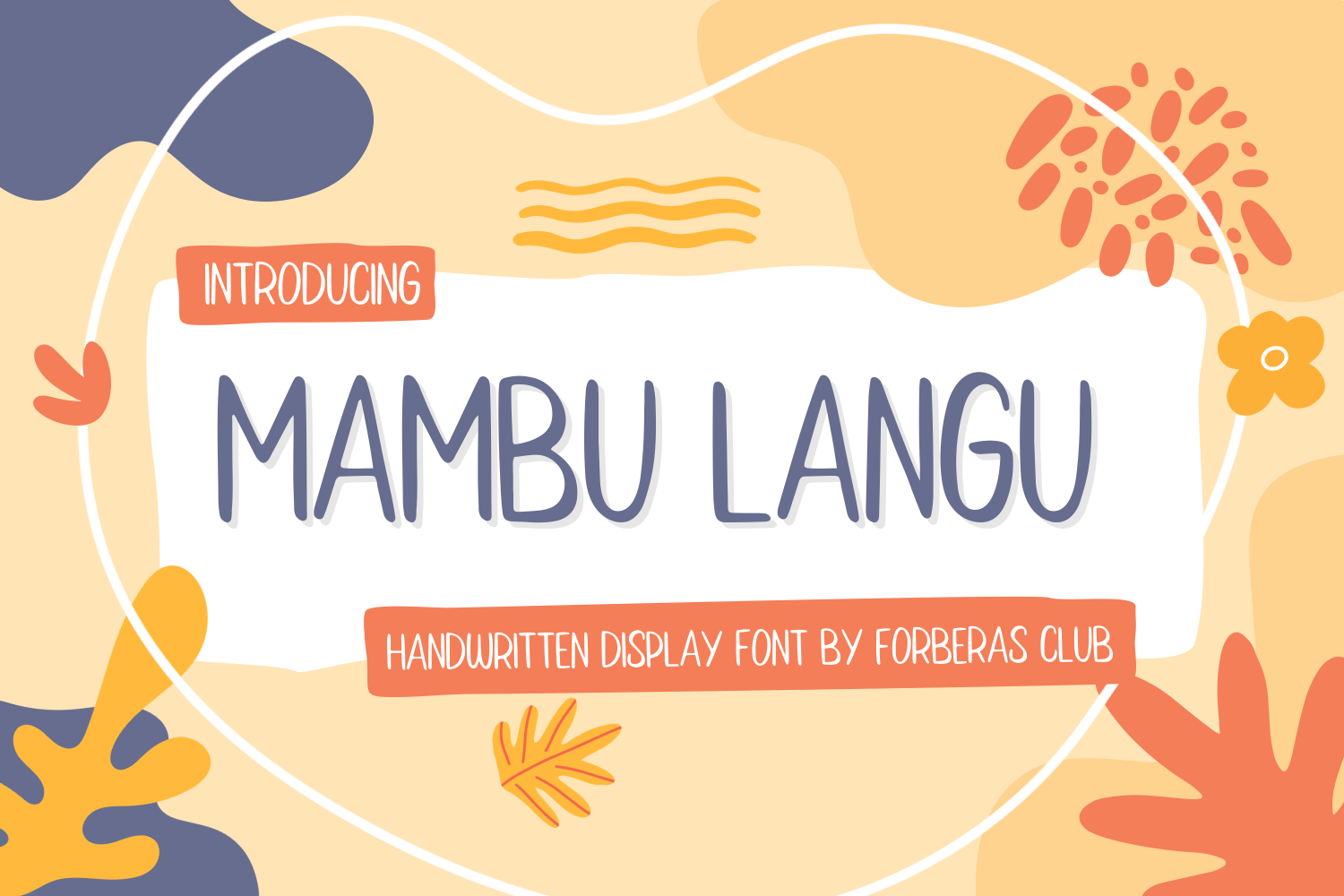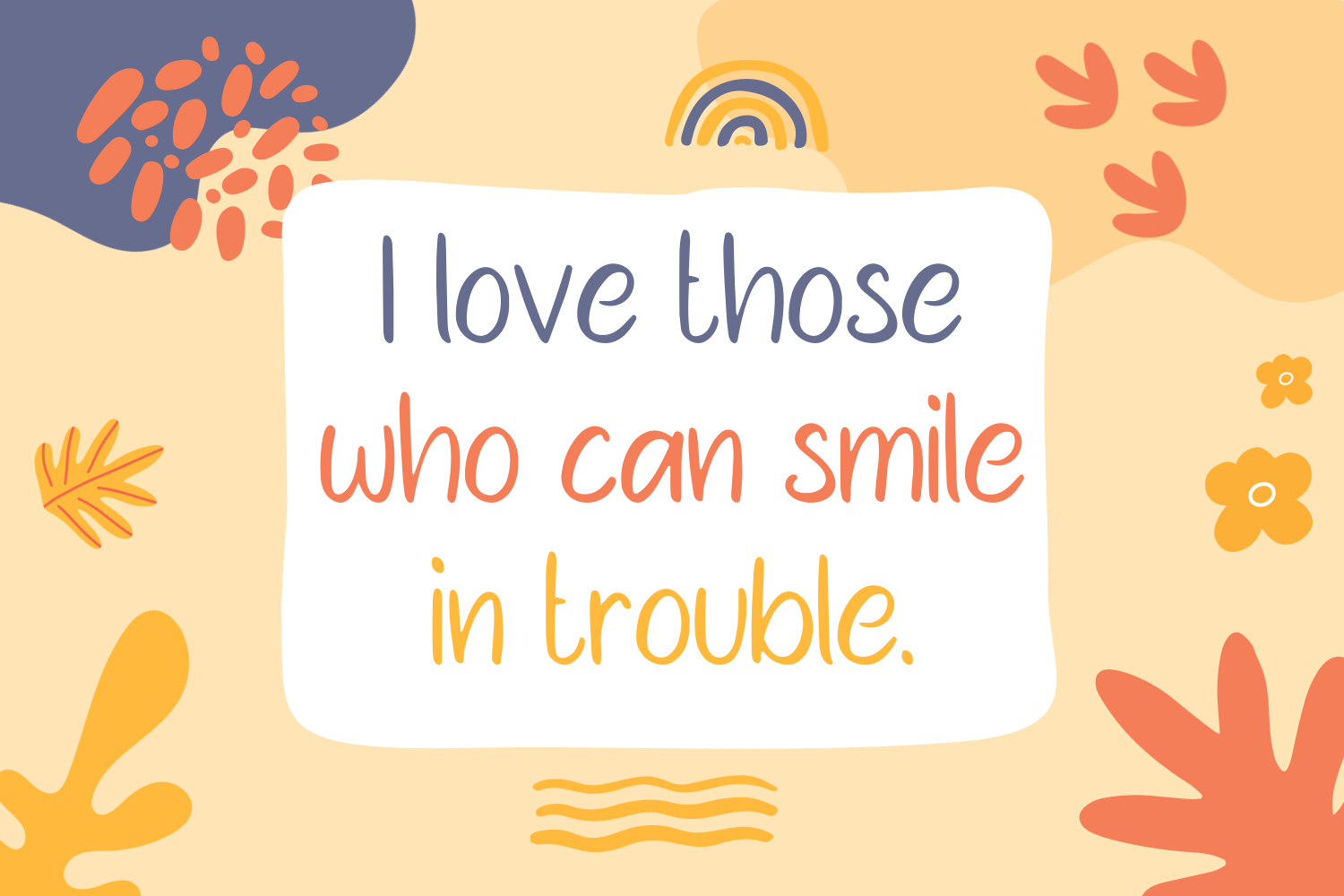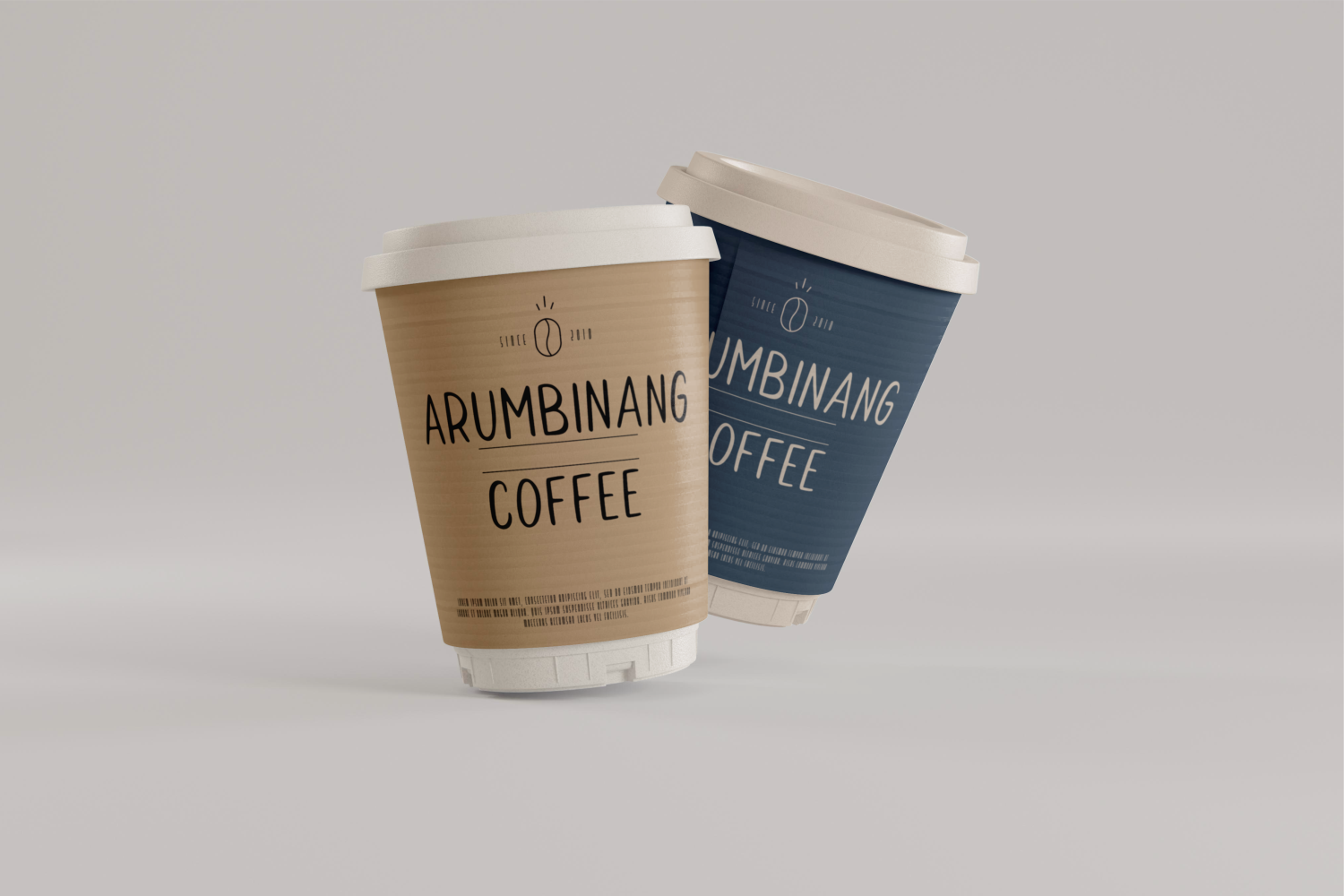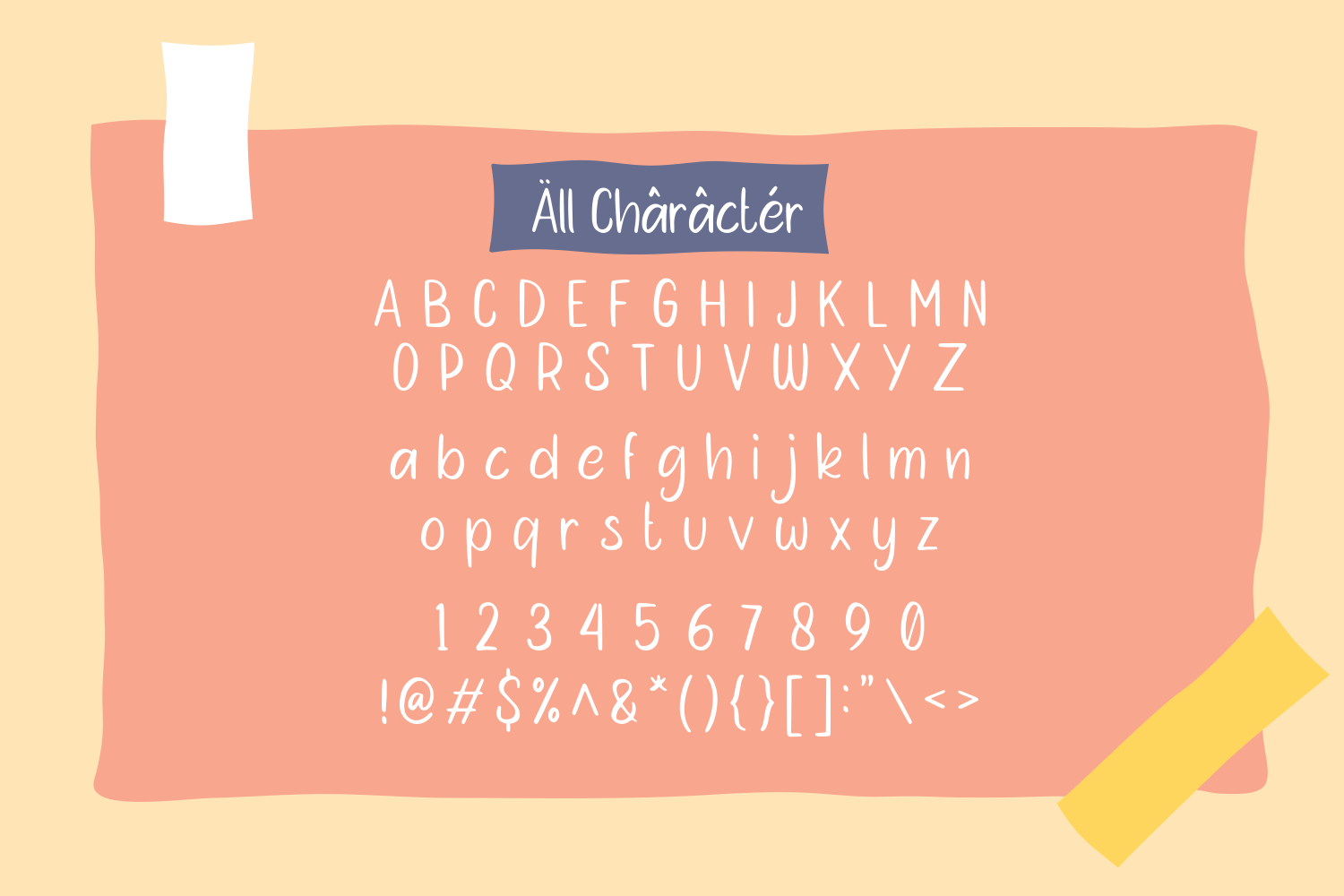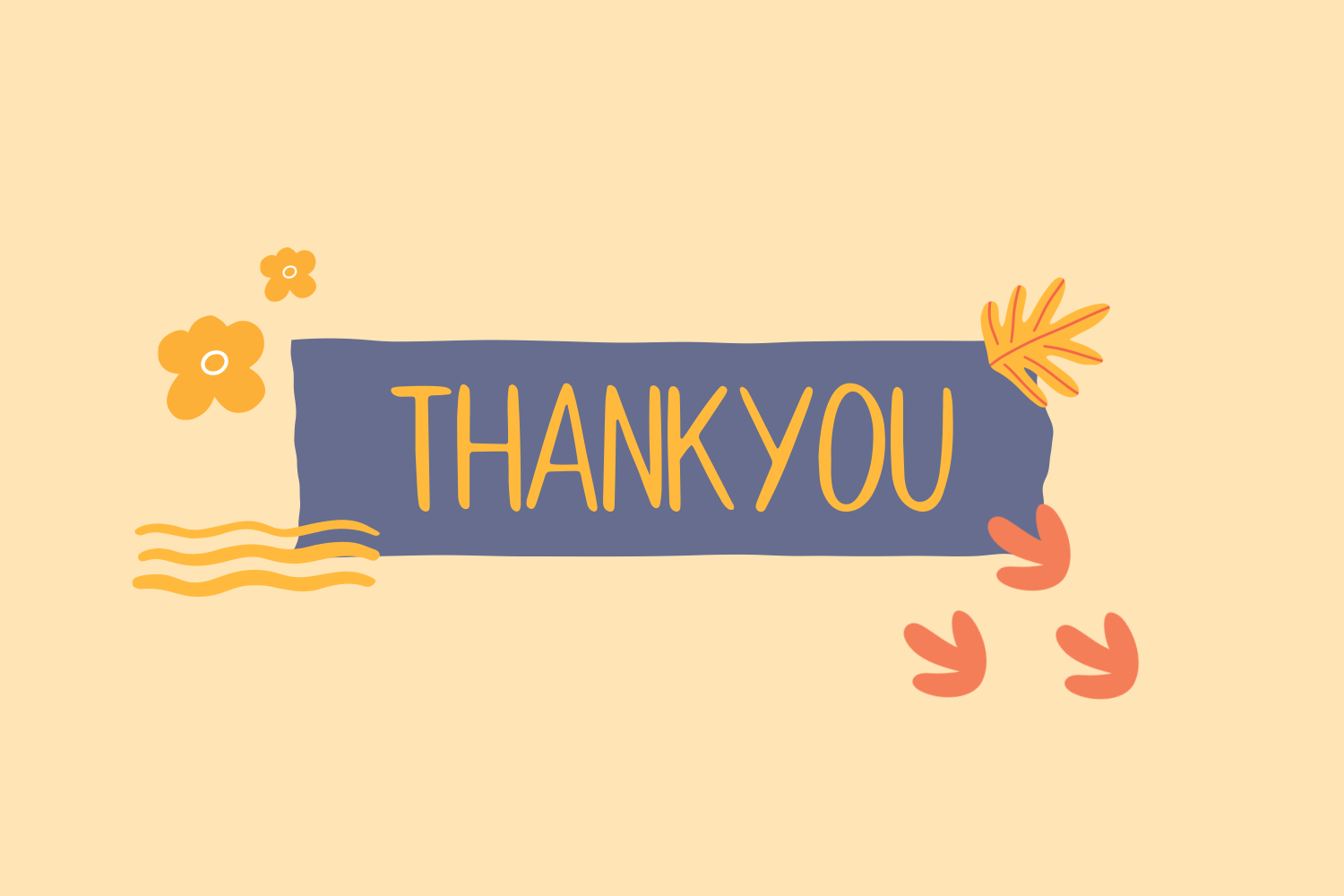
Mambu Langu Free Font
Introducing Mambu Langu Free Font, a versatile and minimalist handwritten font that exudes cleanliness and simplicity. This adaptable typeface seamlessly complements a wide range of projects, allowing your creative ideas to shine with exceptional distinction. Enhance your designs and witness how Mambu Langu effortlessly elevates their visual impact. Embrace the captivating allure of this font and experience the remarkable difference it brings to your creative endeavors. This free typeface was designed by a talented Forberas Club. If you like it don’t forget to check out the full version.